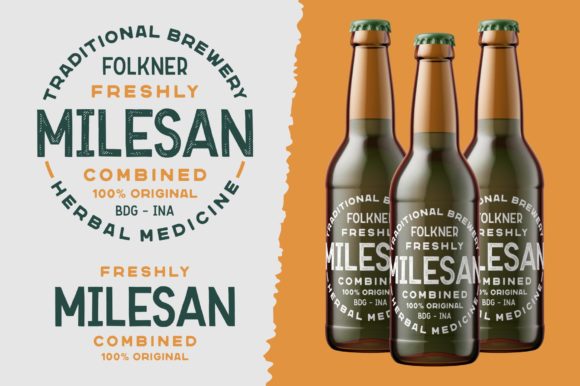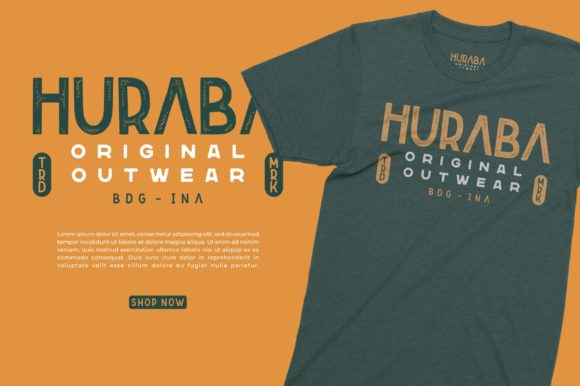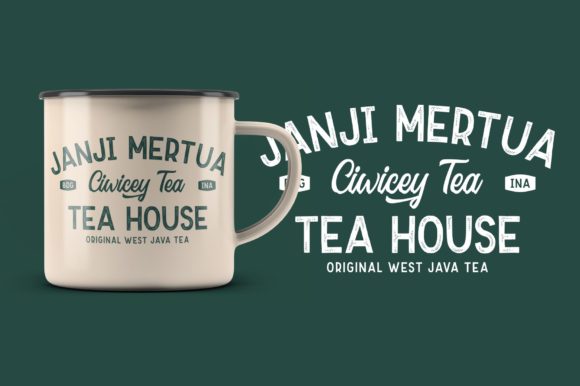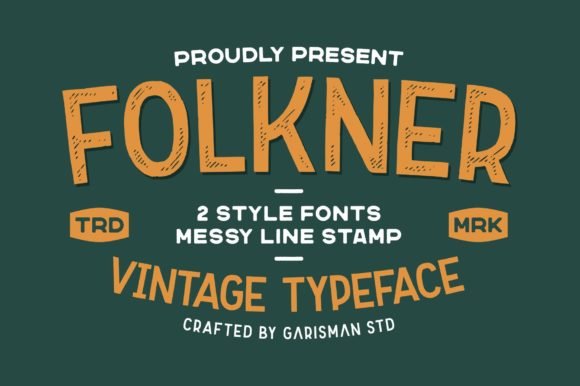
Introduction to Folkner Font
Folkner is a bold and neat lettered display font.
Masterfully designed to become a true favorite, this font has the potential to bring each of your creative ideas to the highest level .
Key Features of Folkner Font
Why Choose Folkner Font?
Folkner Font offers exceptional quality and versatility, making it a valuable addition to your design toolkit. Whether you’re creating for personal projects or commercial use, Folkner Font delivers professional results.